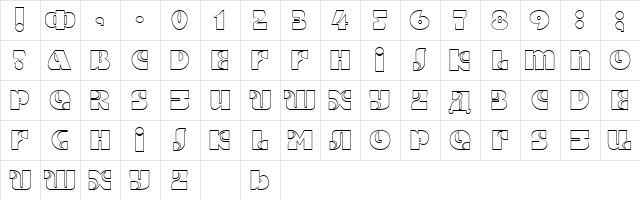
MotterHombreDS Outline
Design Context for MotterHombreDS Typeface
MotterHombreDS is built around its visual character rather than neutral utility — its distinctive forms are designed to make an impression at display sizes.
Font Pairing: Pair with a clean neutral sans-serif for body copy to let MotterHombreDS's character lead without overwhelming the composition.
Pro Tip: Use MotterHombreDS exclusively at display sizes — it was designed to be seen, not read at length. Let a neutral companion handle body copy.